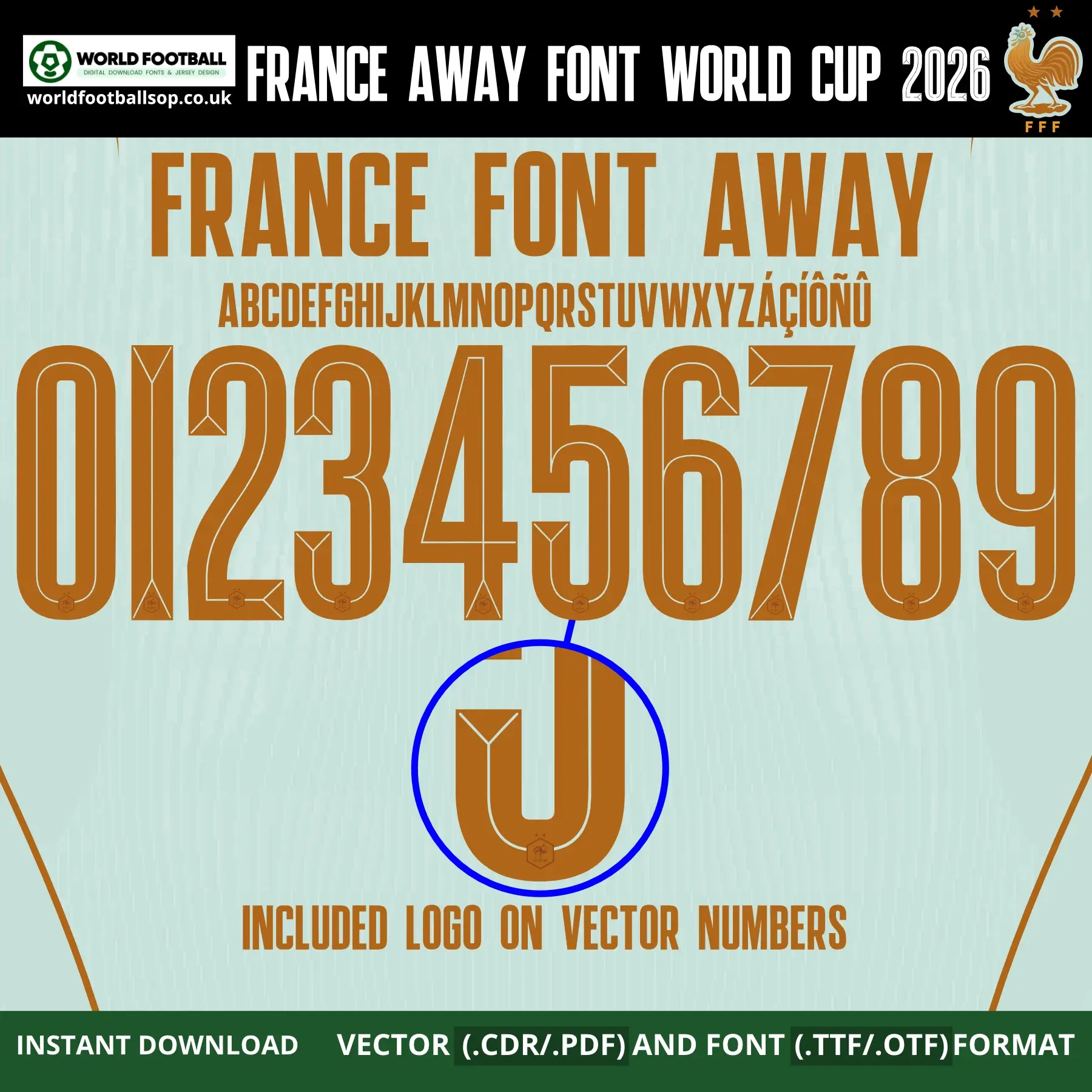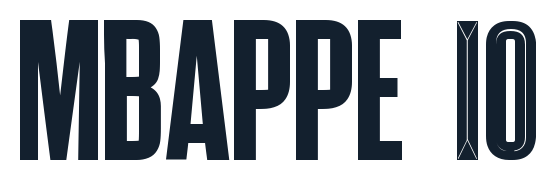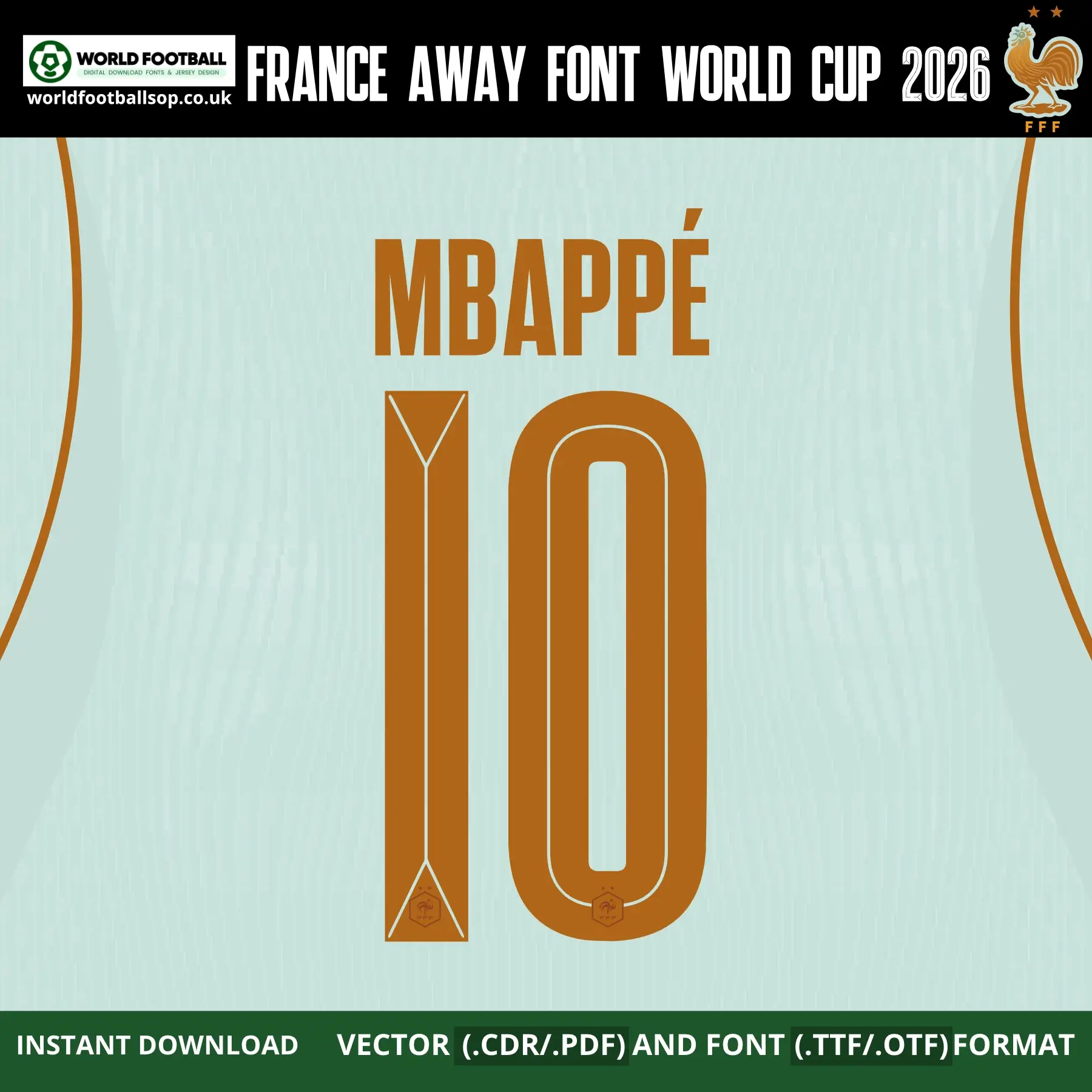
France Away Font World Cup 2026 - Les Bleus Mint Green Art Deco Style
The France Away Font World Cup 2026 pack recreates the retro Art Deco-inspired typeface designed for the Nike France 2026 away shirt. The letters and numbers feature solid metallic gold-bronze color with elegant retro styling over the distinctive mint green "Igloo" base, exactly matching the Statue of Liberty-inspired Les Bleus away kit released March 2026.
Perfect for kit printers, collectors and designers, this pack lets you produce accurate France away font football namesets for every World Cup 2026 France fan jersey. Vector numbers include the small monochrome FFF federation crest at the bottom, while the TTF/OTF fonts keep things clean for general design projects. Create "MBAPPÉ 10" for posters, thumbnails, or custom shirts that match the official away kit style seen on TV and in stadiums.
Full uppercase A-Z alphabet plus extended Latin characters (É, È, Ë, Â, Ç, Ù, Î, Ô) for French and international player names.
Numbers 0-9 in France 2026 away kit style, ready for back, front or shorts printing.
Preview layouts: full number set with alphabet, "MBAPPÉ 10" example, and complete character showcase with logos.
Design highlights
Retro Art Deco style: Metallic gold-bronze typeface matching the Nike France 2026 away kit Statue of Liberty aesthetic.
Les Bleus away perfect match: Gold-bronze font designed for the mint green "Igloo/Monarch" shirt with copper detailing.
High-visibility contrast: Elegant bronze ensures readability on mint green fabric for TV broadcasts and stadium viewing.
FFF crest integration: Vector digits include authentic FFF federation badge at number base, just like official match shirts.
Designed to match the Nike France 2026 World Cup away kit with mint green base and copper accents celebrating Franco-American history. Uses the stunning retro typography distinct from the home kit's modern italic style. Works perfectly alongside your France home kit font product so customers can buy complete Les Bleus World Cup sets.